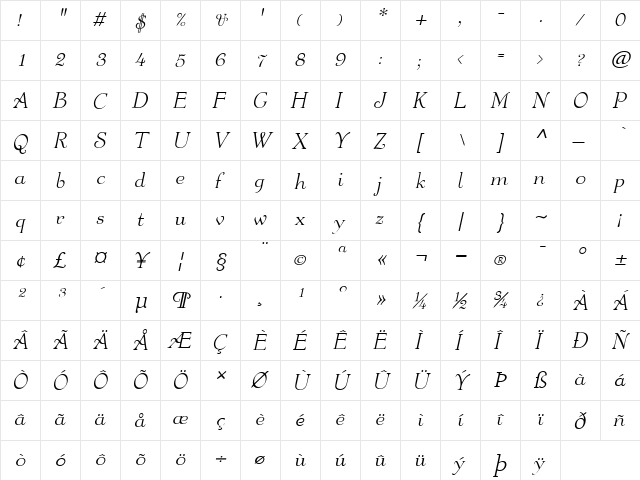
Fanciful Italic
Design Context for Fanciful Typeface
Fanciful takes a measured approach to typography — its balanced proportions and neutral character make it a reliable workhorse for both digital and print work. The slanted form adds forward momentum and visual energy.
Pro Tip: Use Fanciful for emphasis, pull quotes, and subheadings where its slanted energy can add rhythm to the layout.